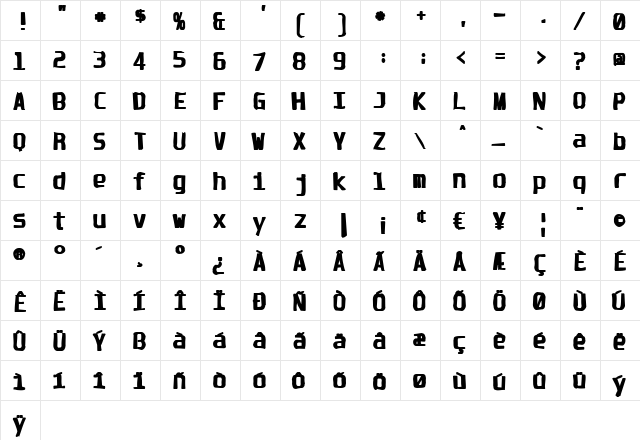
Unispace Ink Regular
Design Context for Unispace Ink Typeface
Unispace Ink takes a measured approach to typography — its balanced proportions and neutral character make it a reliable workhorse for both digital and print work.